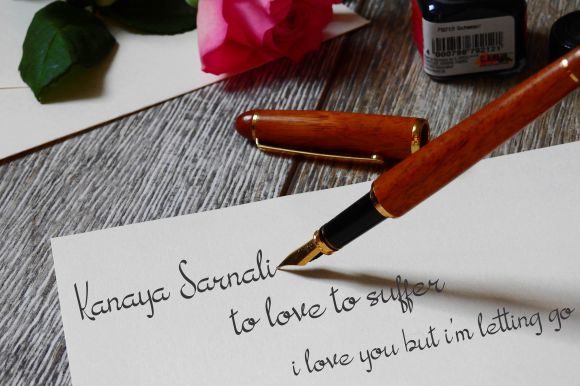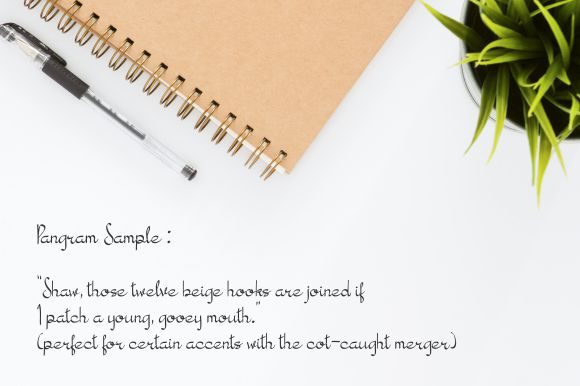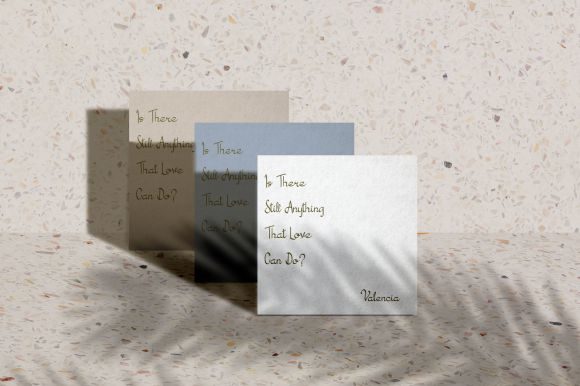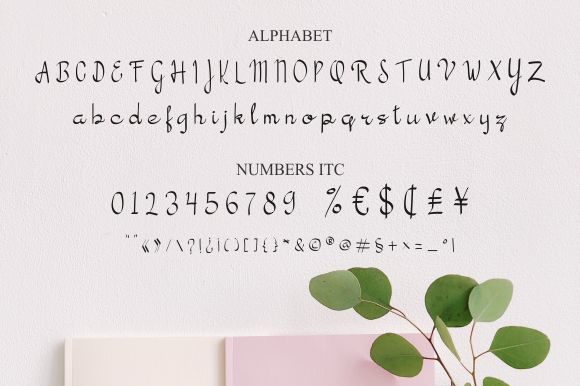
Valencia Font
About Valencia Font
Valencia delivers a contemporary homage to classic calligraphy. This unique and beautiful script features incredibly soft and well-balanced curves, making it an unmissable addition to any crafter’s font library!